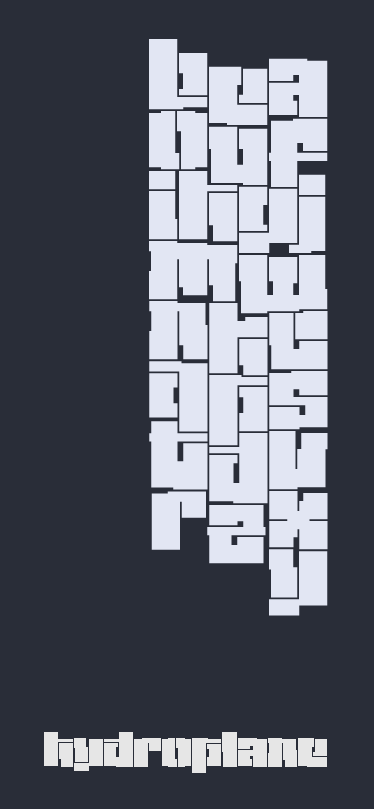
• I took this epic digger while mountain biking in the rain last Friday. No real damage besides a slightly bruised shoulder. But while kneeling on the ground and collecting my wits, I noticed the impression left by my tire treads in the mud and thought there might be a Fontruction idea in there. Hydroplane is the product of that and represents a desire to stay upright, moving forward, with two wheels firmly gripping the terra.
well, this is something new here!
Epic indeed.
I like! I voted 8.6 because I've got a fetish for legibility. (Boring, I know.)
This is quite awesome! The consistency of the inconsistency really makes it stand out. Although every character is great, the way you made s and 5, z and 2 different from each other is brilliant. The only thing you might want to consider revising--and i am being very nit-picky at this point--is not to make p and q mirror images of each other. First Jettison Stencil and now this. Impressive. Another 10. :)
@intaglio: No worries, I can't fault you for wanting something you can actually read ;-)
@thalamic: Thanks. I'm glad you think the s and 5, z and 2 differentiation was successful. That was/is tough. If you look close at the 'p' and 'q' you'll notice some subtle differences. I wasn't worried about the horizontal white space mirroring each other for those two characters as they rarely appear close together in a word. And in the case of a word like 'pique' (as seen below) I like how the horizontal space between the steam and the dot of the 'i' jumps up a notch above the plane created by the horizontal white space in the 'p' and 'q'.
first of all.
this rocks in several ways!!!
but... i got a deep graffiti background... and i'm able to read even the most complex "porno-styles".
but i don't get the sense of that sample :)
I'm realllly digging this, since I normally dwell on the edge of legibility. I would love to see an uppercase. I've got a deep graffiti background too, but I'd also like to see some complex "porno-style" from kix! :)
just a quick post of an old one.
especially to satisfy the one and only geneus1
:P
Great, great urban font.
I'm not really into street culture, but this set spurts trendiness from each gliph.
Great font...so fat and so dinamic... Yeah it rocks
Welldone another time...
HEAVY! and i feel your story, i broke my collar bone a year back trying to shoulder tackle the earth going OTB.
wow/// this is harkor!!! reminds me of some of the imagery freetekno soundsystems use/// http://www.mirekulous.net/probono/septik-nexus/
probably to coolest graffiti style font on fontstruct so far. respect! i'd buy a t-shirt with that sample printed on it right away...
guess i should go crash my bike more often too...;)
btw: i just stumbled upon this by reading the focus on fontstructors article on fontfeed! congrats, well-deserved fame!:)
Thanks shasta. Big ups to the FontShopFeedStruct crew for doing those interviews. The latest interview with Em42 is terrific - really shows the white hot power of Fontstruct.
I had a good ride the other day (crash free!). At the end of the ride I had one of those mud stripes running up my t-shirt from ass to neck. Totally gave me inspiration for a Hydroplane t-shirt, where, on the back of the shirt, the letters would waterfall (like in the sample above) from the neckline to the bottom of the shirt. I think the visual effect would be not unlike a tire tread riding straight down the back of the shirt. Of course the t-shirt would be printed black on black.
Comment by afrojet 20th july 2009
EXCELLENT AND DEMENTED !
Comment by darkseeid 30th september 2009
Comment by noebenjamin 8th january 2011
Great Work!
i am a discovery font freak
My props formSan Diego California, You Got S*kills
HARSH